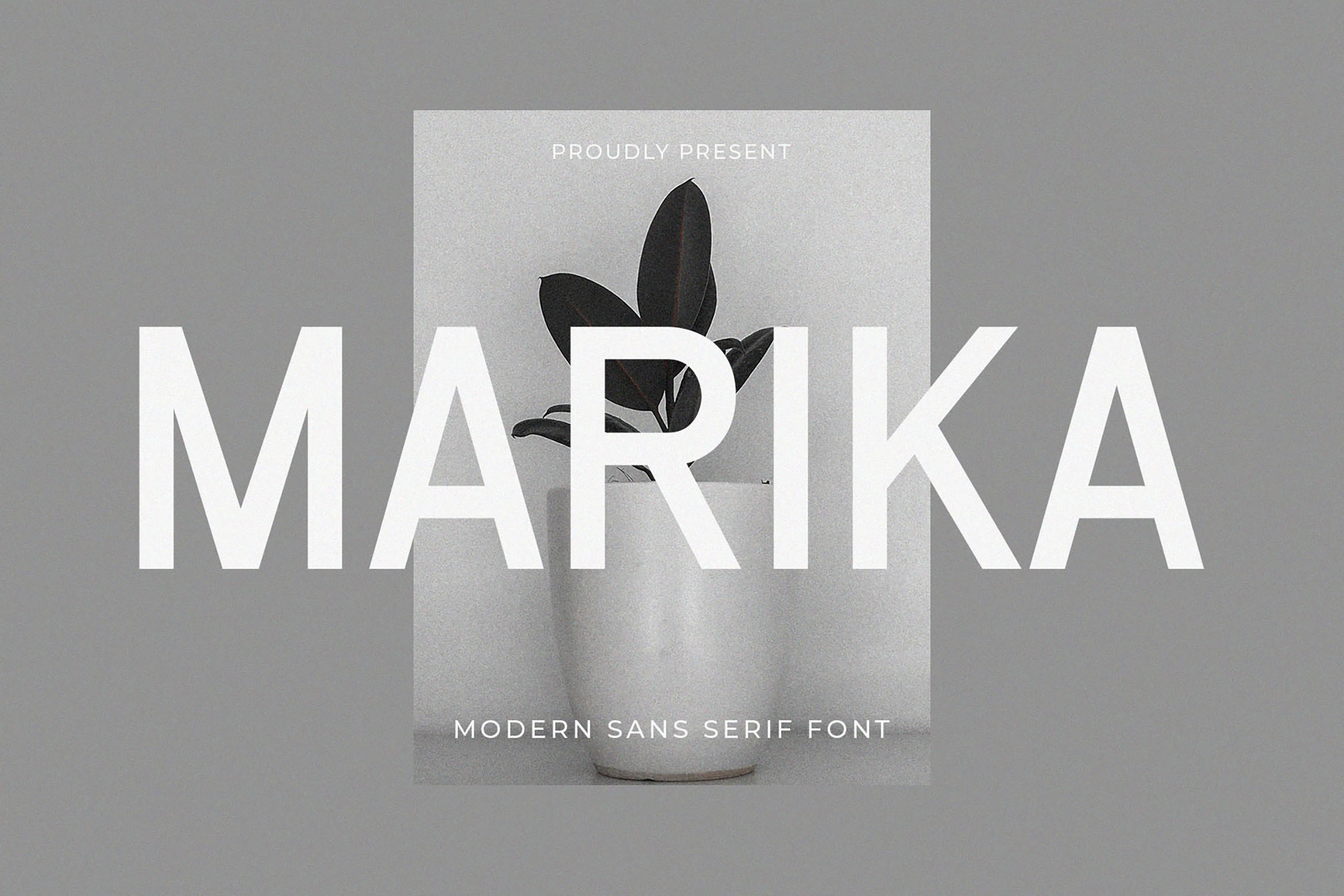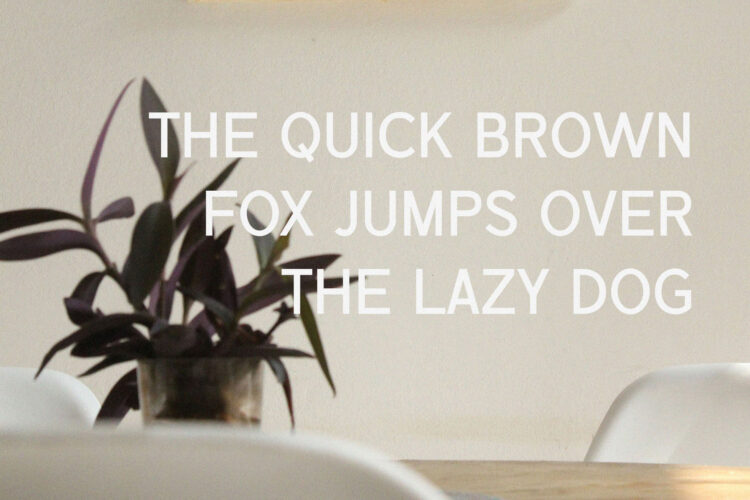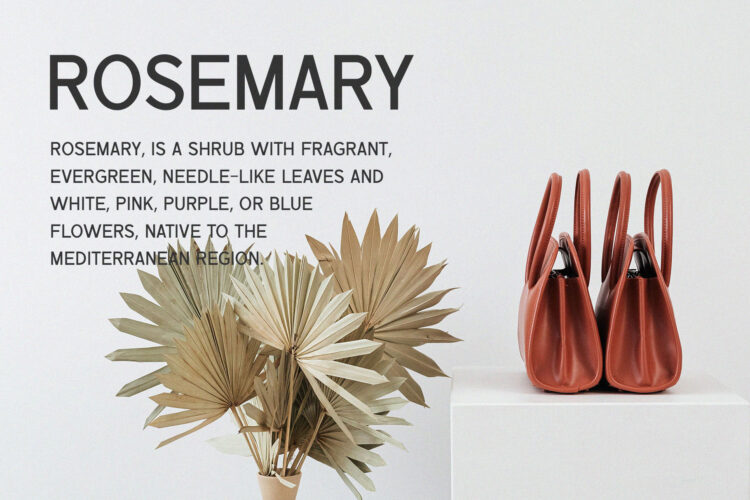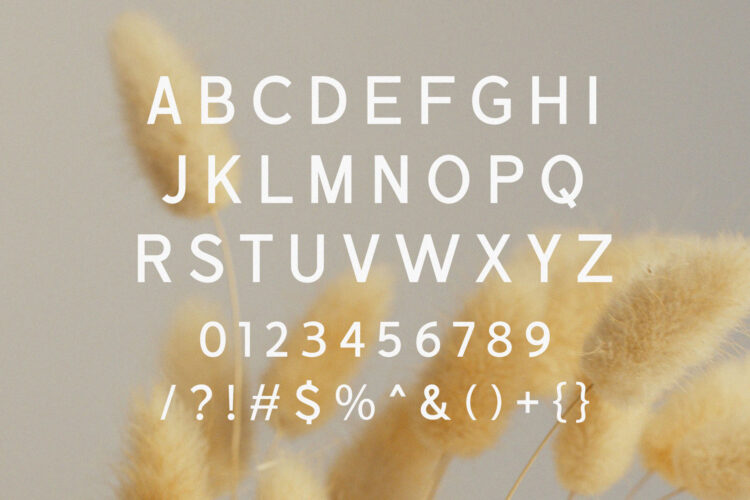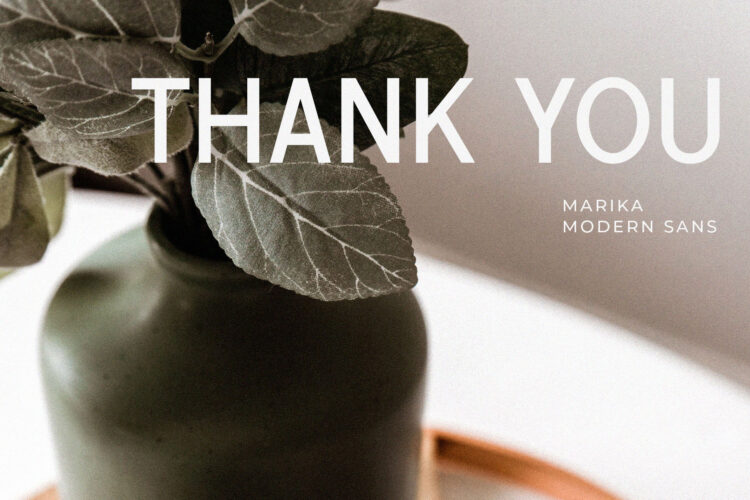
Introducing our new Marika, modern sans serif font with elegant style this is perfect for branding, logos, invitation, magazines, product packaging and more.
Marika – Modern Sans Serif